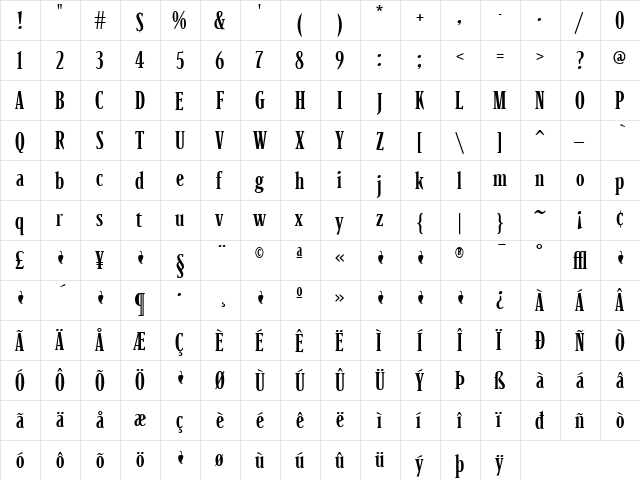
Parkinson Regular
Design Context for Parkinson Typeface
Parkinson is a composed and adaptable typeface that performs quietly and consistently across a wide range of design contexts.